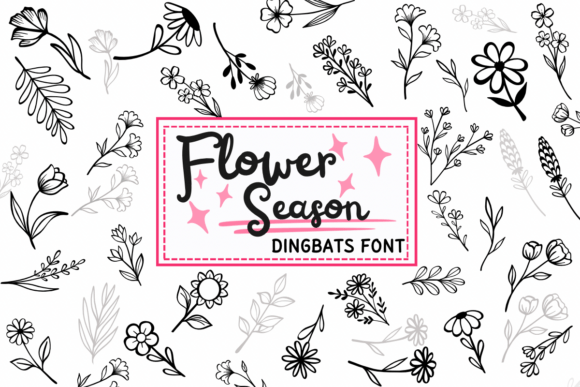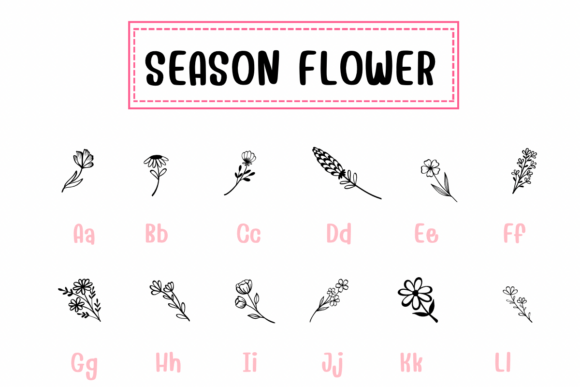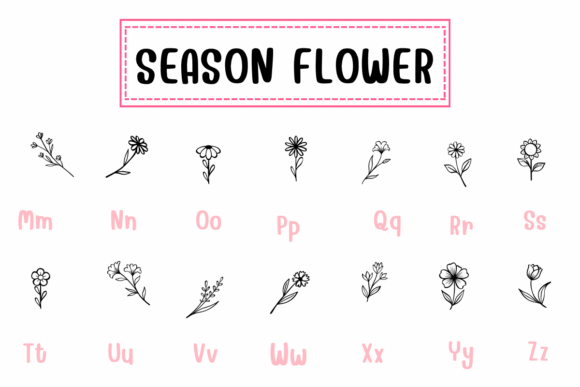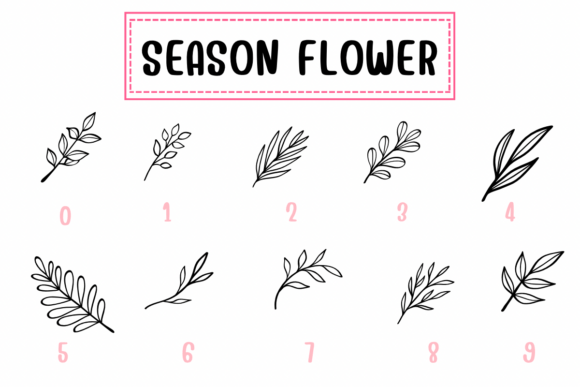
Season Flower Font
About the Season Flower Font
Make a bold statement with Season Flower Font, a powerful and memorable font. Flower Season
is a delightful dingbat font filled with hand-drawn botanical doodles. It’s a whimsical, nature-inspired collection perfect for seasonal crafting, branding, and adding an organic touch to your design toolkit.
Season Flower Font Example